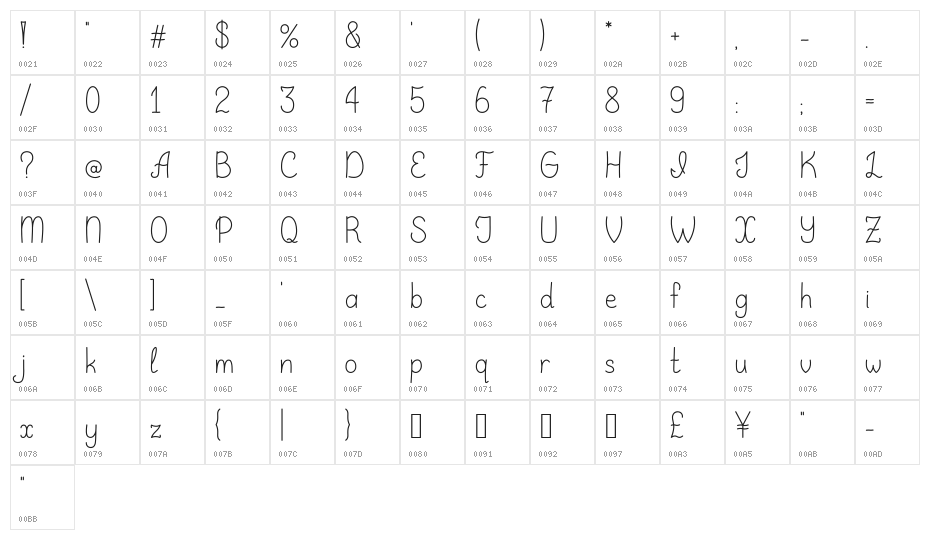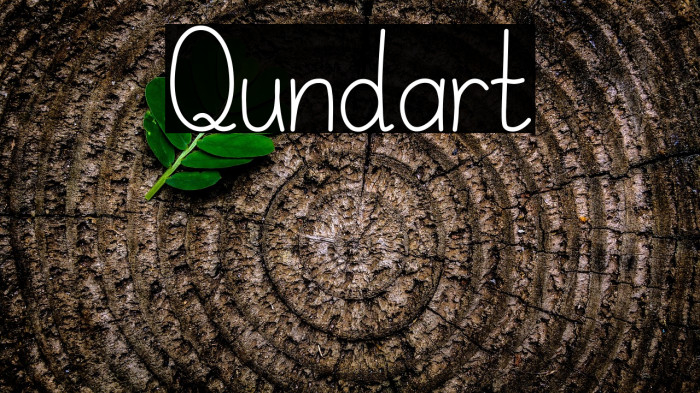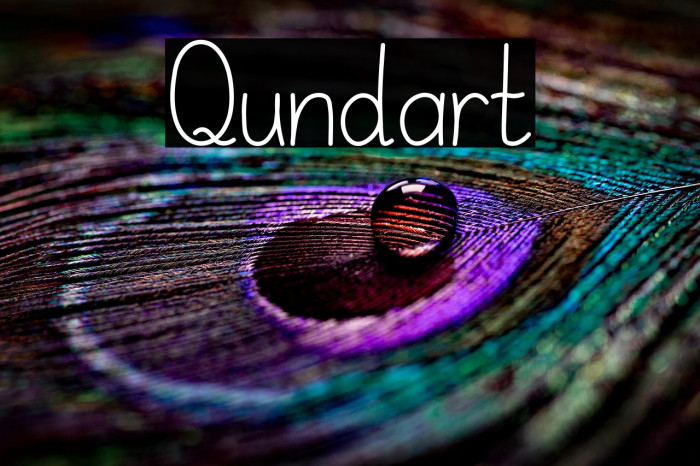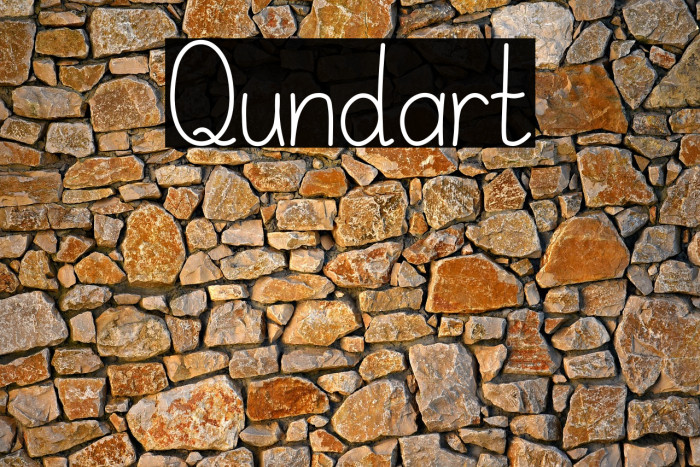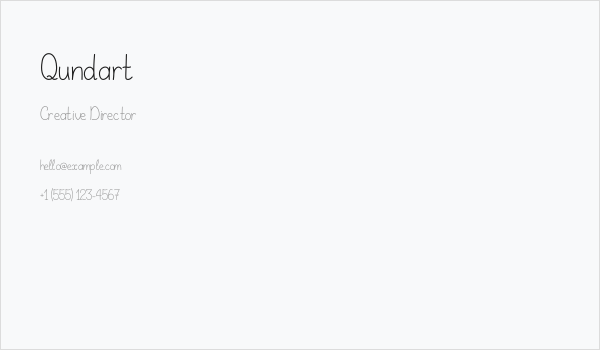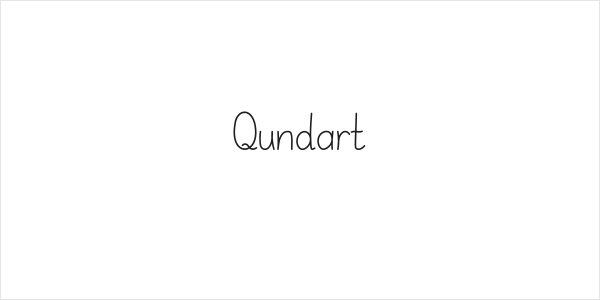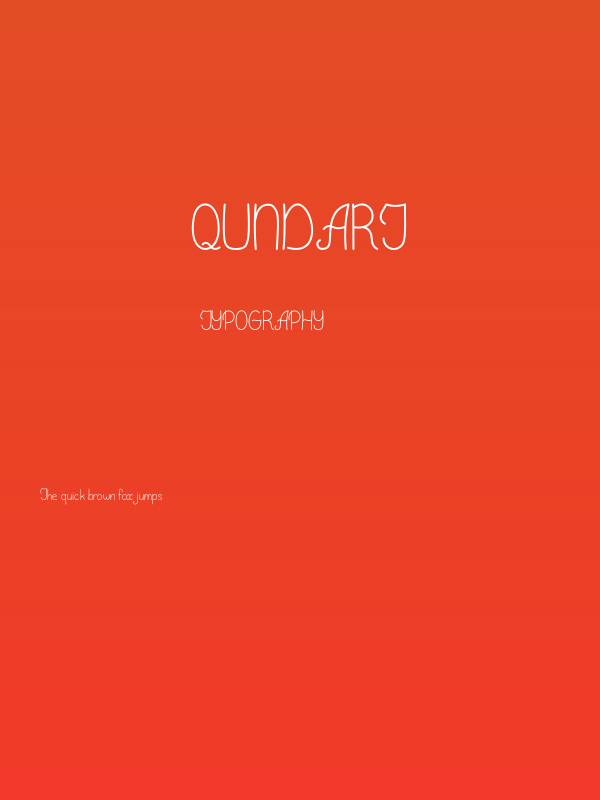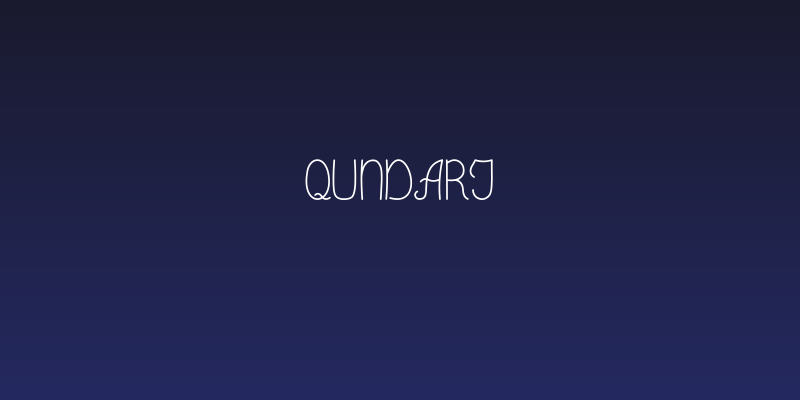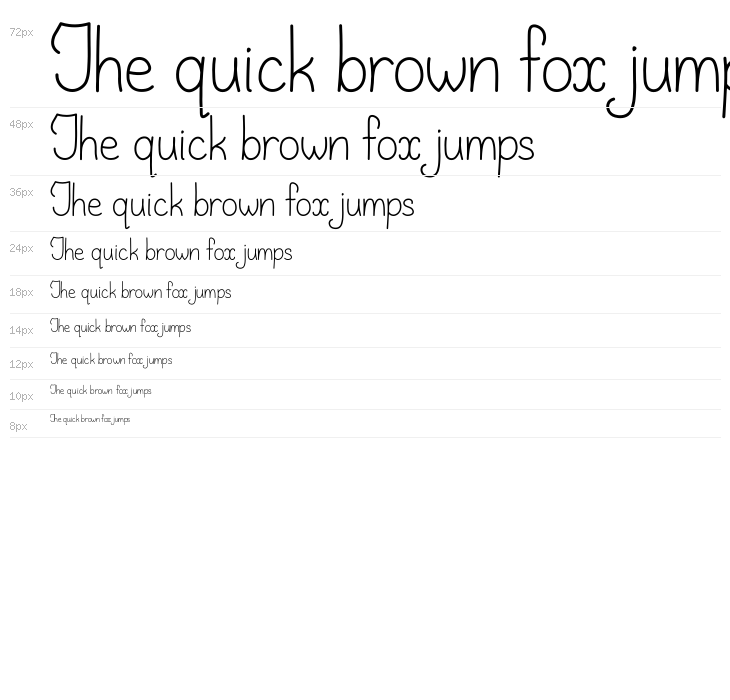
Qundart Font
Qundart Description
This font features a playful and whimsical style with a handwritten appearance. The letters are characterized by their rounded forms and slight irregularities, giving them a casual and friendly look. The strokes are consistent in width, providing a uniform appearance across all characters. The uppercase letters are slightly taller than the lowercase, maintaining a balanced proportion. The numerals and special characters follow the same playful style, making them easily readable while retaining the font's unique charm. This font is suitable for projects that require a personal touch or a fun, informal vibe.